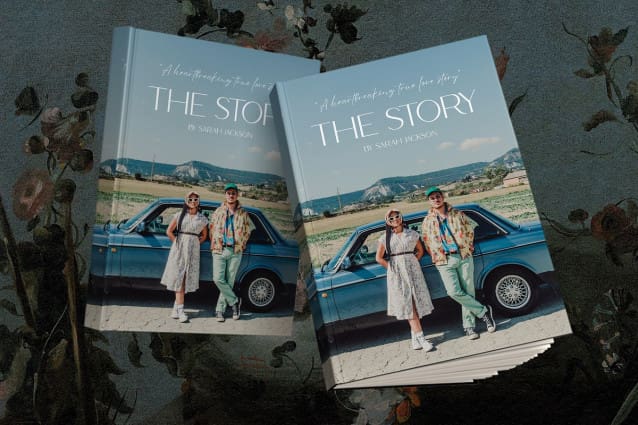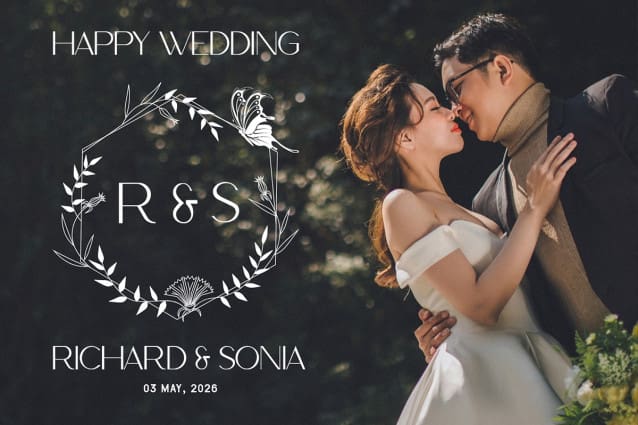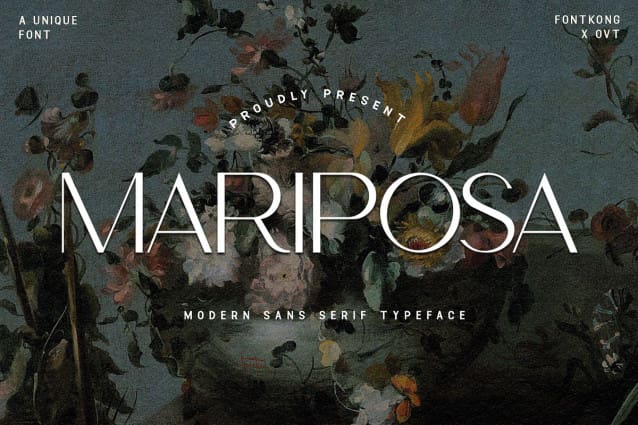
Mariposa Font
Mariposa Font – Classy Sans Serif Font is a new creation that comes with an attractive style and is formed with a thick classic font feel. This font is one of those fonts that give you options for people who are interested in using a sans serif font. Mariposa Font – Classy Sans Serif Font has the characteristic that there are no additional letters in it. It is a legible font that is easy to distinguish every letter. This font is visible when printed in small or large font sizes.
Mariposa Font – Classy Sans Serif Font is the best font to use in many ways. This font can be a wedding font. The Mariposa Classy Sans Serif Font will look simple and elegant when combined with several wedding supplies such as invitations, posters, and souvenirs. Mariposa Classy Sans Serif Font can be used for print magazine covers and online magazines.
Mariposa Font – Classy Sans Serif Font beside part of a sans serif font, which can be called an aesthetic font and a modern font. Its various can be digital fonts and print fonts.